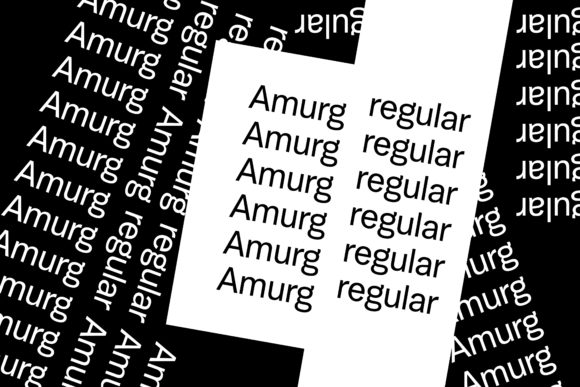
Adorn your digital creations with Amurg Font, a captivating sans serif typeface that exudes elegance and versatility. Crafted by the visionary Alexandru Cuibari, this custom-made Neo-Grotesque font family is a visual symphony that harmoniously blends classicism with a contemporary flair.
Immerse yourself in the allure of Amurg Font, a design masterpiece that empowers you to craft visual narratives with unparalleled impact. Its graceful curves, softened angles, and subtly flared endings evoke a sense of sophistication and finesse, inviting readers to engage with your content on a deeper level.
Experience the beauty of harmony and balance as Amurg Font's generous x-height and subtly condensed shapes unite to create a cohesive and visually pleasing aesthetic. Its abbreviated ascenders and descenders, coupled with partially closed apertures, cultivate a compact texture that enhances the font's legibility and readability, ensuring your messages are crystal clear and effortlessly absorbed.
Step into a world where confidence and approachability intertwine seamlessly. Amurg Font's friendly yet assertive tone lends itself effortlessly to a wide spectrum of applications, from captivating headlines that demand attention to body text that flows smoothly and invites readers to delve deeper into your creations.
Whether you seek to craft stunning logos that leave a lasting impression, design brochures that exude professionalism, or create websites that captivate visitors from the first click, Amurg Font is your trusted companion. Its versatility extends beyond the digital realm, as its charm translates flawlessly into print materials, transforming ordinary designs into extraordinary masterpieces.
With Amurg Font, you possess the power to craft a visual identity that reflects your unique vision and captivates your audience. Its timeless appeal ensures that your creations will endure the test of time, embodying a legacy of excellence that will continuously inspire and engage.
Embrace Amurg Font today and unlock a world of creative possibilities. Let the beauty of its design elevate your projects to new heights, leaving an unforgettable mark on the hearts and minds of your audience.